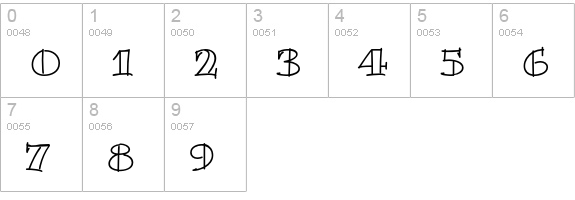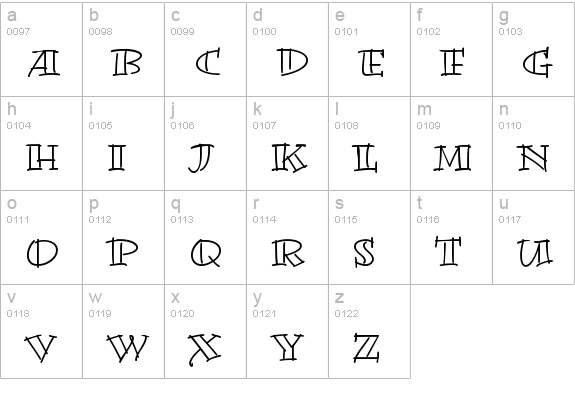
Bermuda LP Std Open font is a modern and stylish typeface that exudes elegance and sophistication. With its clean lines and sleek design, this font is perfect for a wide range of design projects, from branding to editorial layouts. The open style of the font gives it a unique and eye-catching appearance that will make your text stand out. The best part is that Bermuda LP Std Open font is available for free download at FontsMarket.com. This means you can easily access this beautiful font and use it in your projects without any cost. Whether you're a professional designer or just someone looking to add a touch of class to your documents, Bermuda LP Std Open font is a fantastic choice. Download it today and elevate your designs with this stunning typeface.